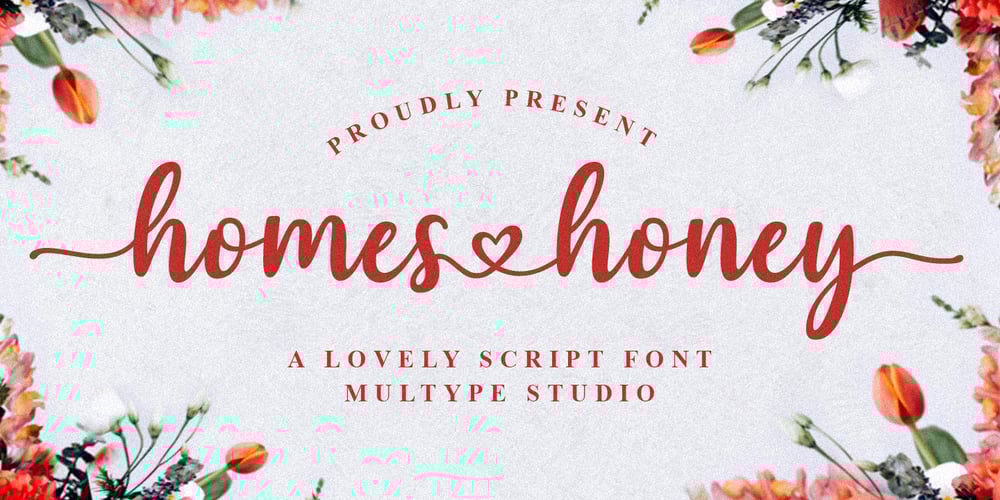
Homes Honey
Homes Honey font
Homes Honey Font Family was designed by Mulia Yanto and published by Multype Studio. Homes Honey contains 1 styles and family package options. Homes Honey is a romantic and sweet calligraphy typeface with characters that dance along the baseline. It will add a luxury spark to branding, wedding invitations, label, logo and other romantic projects.Font Features : Lowercase beginning and ending swash, Connecting heart This font is PUA encoded which means you can access all of the amazing glyphs and ligatures with ease!